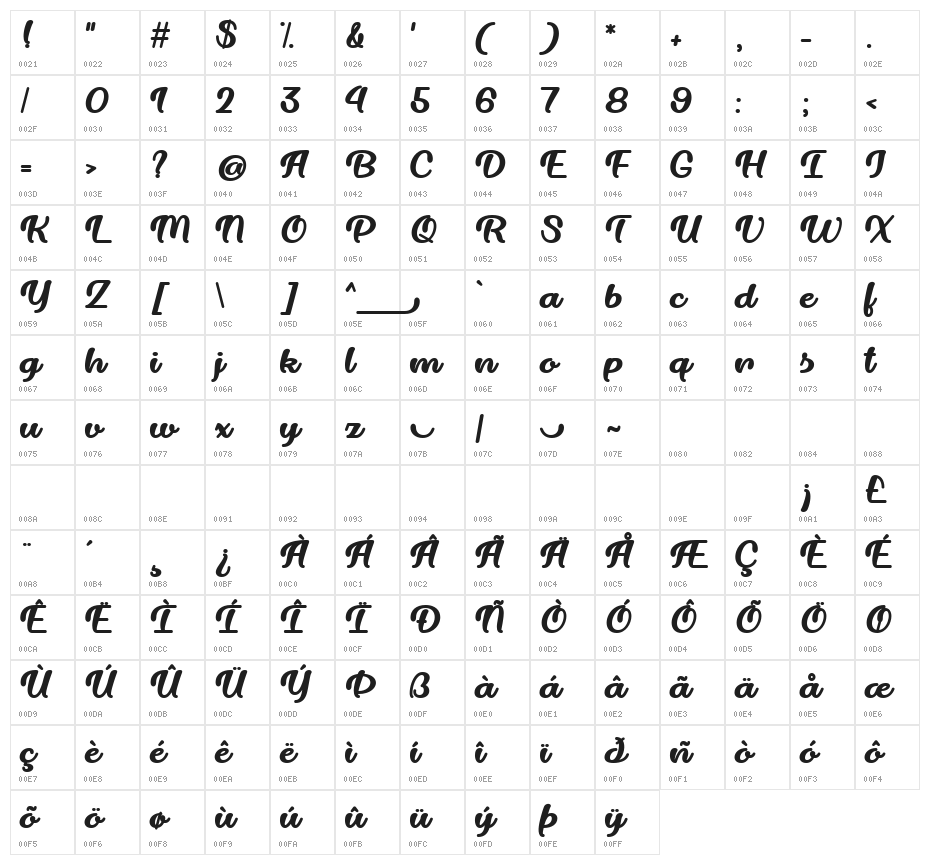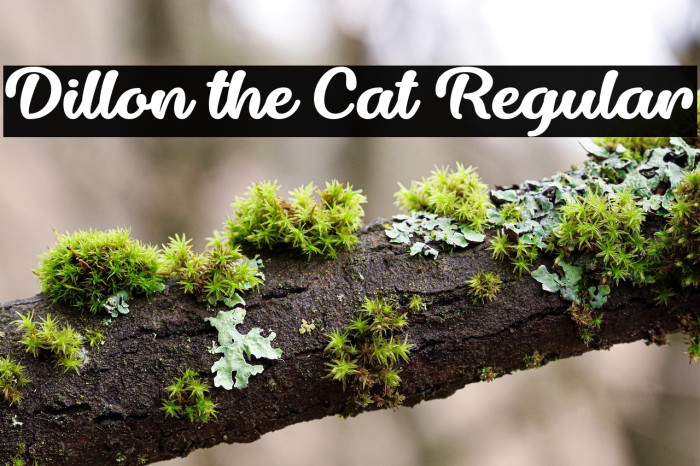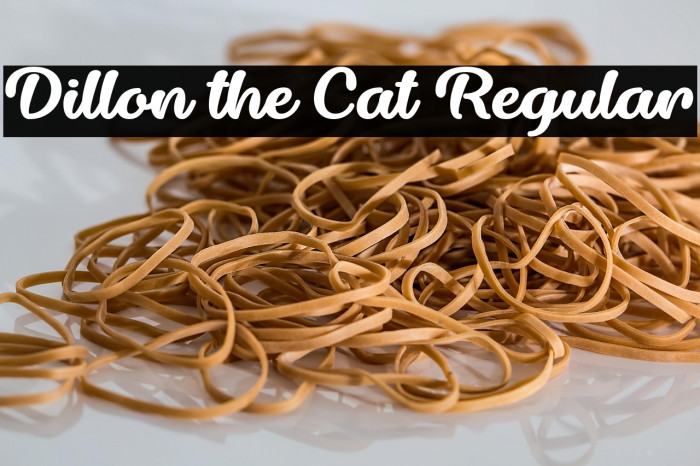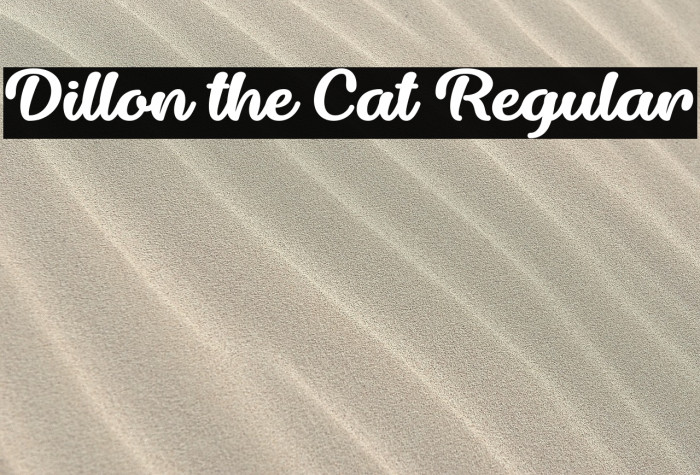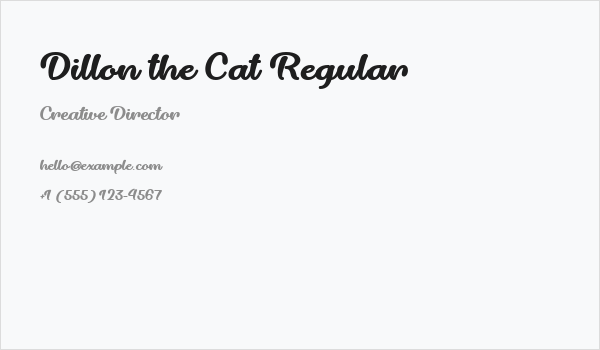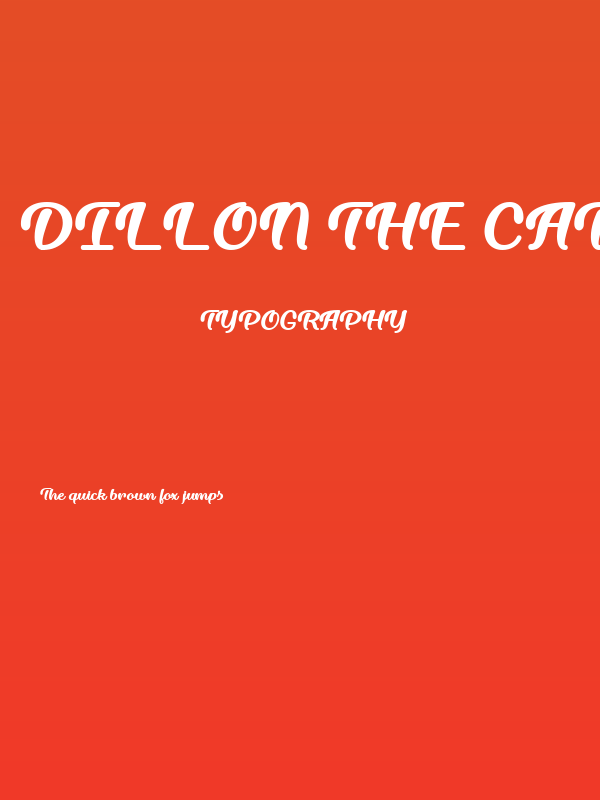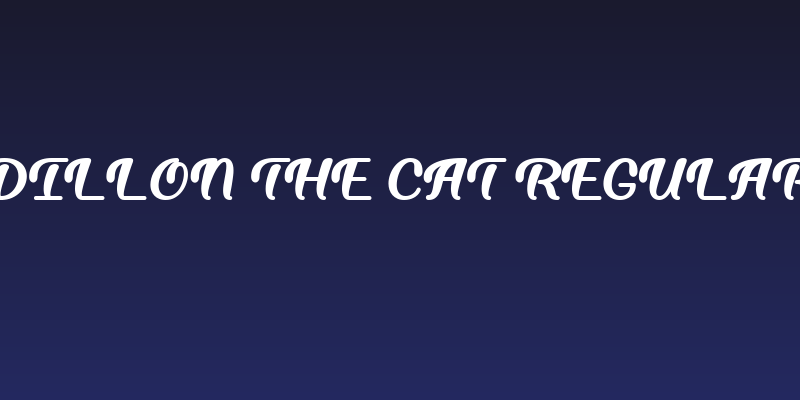
Dillon the Cat Regular Font
Dillon the Cat Regular Description
This font features a playful and dynamic script style with a smooth, flowing appearance. The uppercase letters are bold and slightly slanted, giving a sense of movement and energy. The lowercase letters maintain a consistent flow with rounded edges and a friendly demeanor. Numbers are clear and legible, matching the overall style with a slight slant. Special characters are well-integrated, maintaining the playful and cohesive look. The font's design is suitable for projects that require a lively and engaging typeface, offering a sense of fun and creativity.